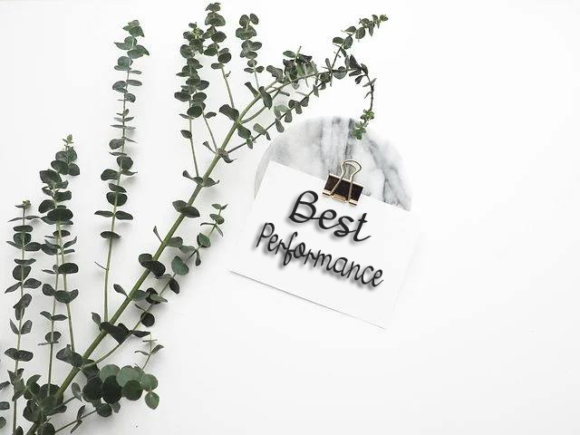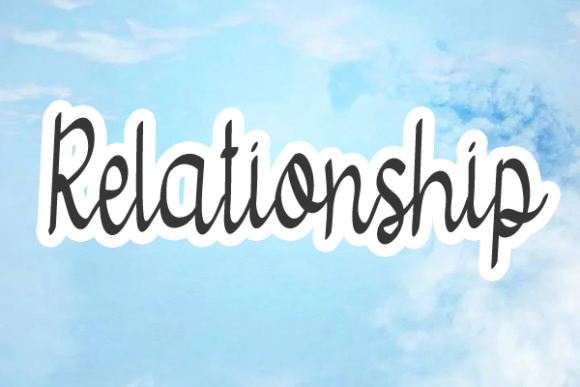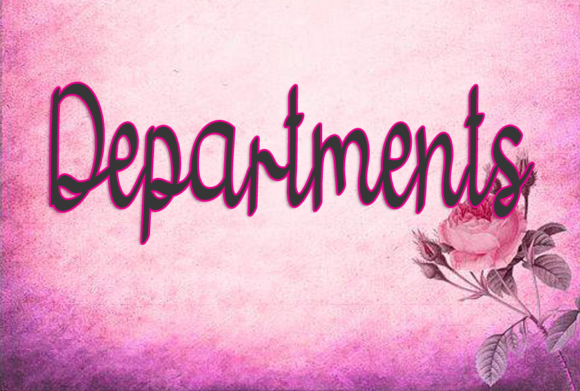
The Executive Font: A Romantic Touch for Your Designs
Have you ever been in the middle of a design project, and suddenly, you just can’t seem to find the right font? I recall a particularly frustrating experience while working on a wedding invitation project. My client wanted a font that exuded romance and elegance, but everything I tried seemed to fall flat. That’s when I stumbled upon the Executive font, and it completely transformed my design.
A Versatile Script Font
Executive is a ravishing handwritten font that has a wide spectrum of applications, ranging from greeting cards to headlines. Its versatility and romantic feel make it an excellent addition to any design project. In this article, we’ll explore the ins and outs of the Executive font, including its features, how to use it, and some similar fonts you might enjoy.
So, what do I love about the Executive font? Here are a few highlights:
- ✨ Romantic and elegant feel: The Executive font has a unique, handwritten quality that adds a touch of romance to any design.
- ✅ Highly versatile: This font can be used for a wide range of projects, from wedding invitations to headlines and more.
- 💫 Beautifully crafted: The font’s intricate details and flowing lines make it a joy to work with.
Of course, no font is perfect, and there are a few small quirks to be aware of:
- 🤔 Limited use in body text: While the Executive font is stunning for headlines and titles, it may not be the best choice for body text due to its script nature.
- ⚠️ Requires careful kerning: As with any script font, kerning can be a bit tricky, so be sure to take the time to adjust the spacing for optimal results.
The Designer Inspiration Behind Executive Font
The Executive font was designed with the intention of creating a beautiful, romantic script font that would add a touch of elegance to any design. While the designer’s exact inspiration may be unknown, it’s clear that they drew from a range of classic script fonts to create something truly unique.
| Font Name | Executive Font |
| Author | AA studio |
| What is the Executive font best used for? | The Executive font is best used for headlines, titles, and short text passages where a romantic, elegant feel is desired. |
| Is the Executive font suitable for body text? | While the Executive font can be used for body text, it may not be the best choice due to its script nature and potential readability issues. |